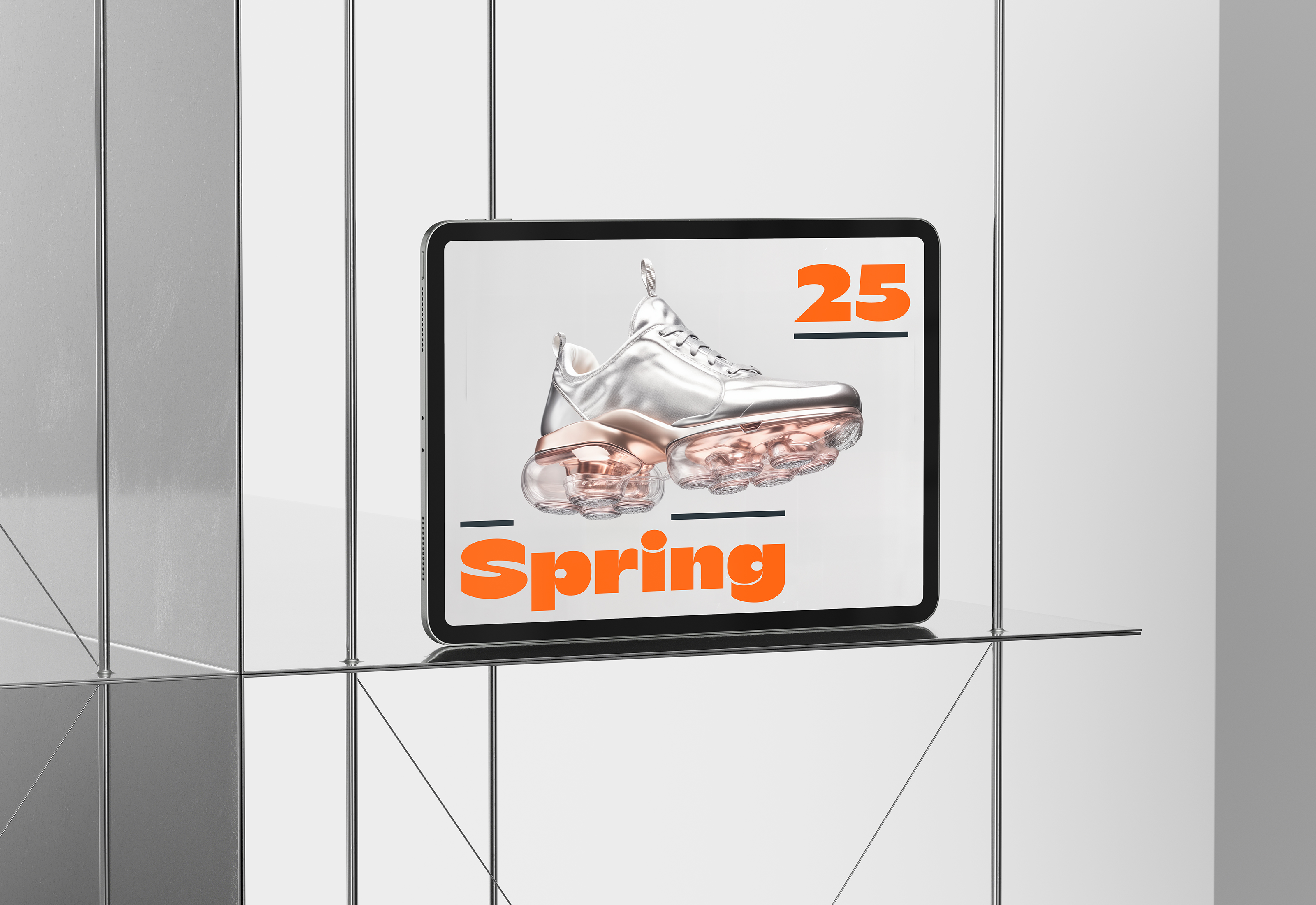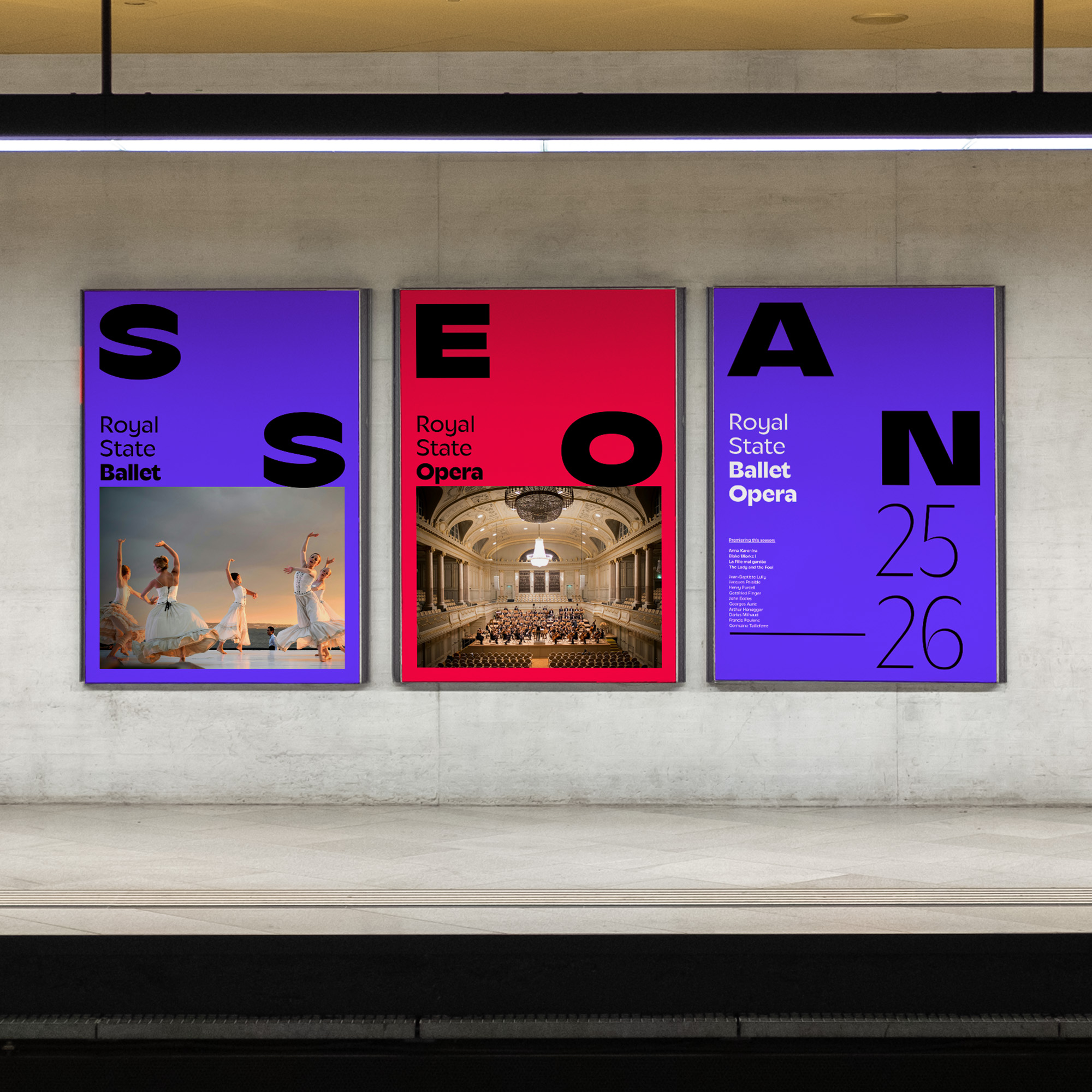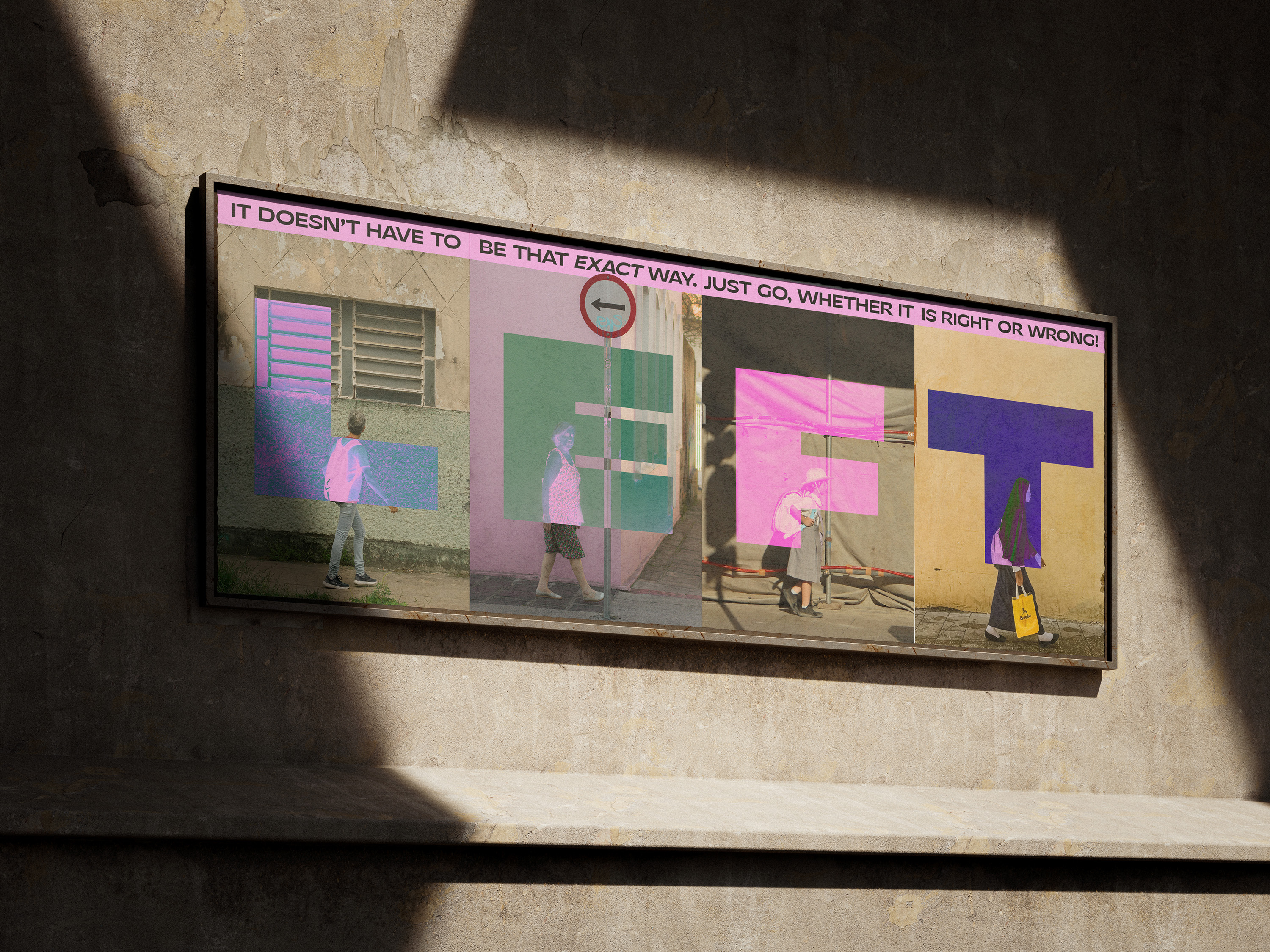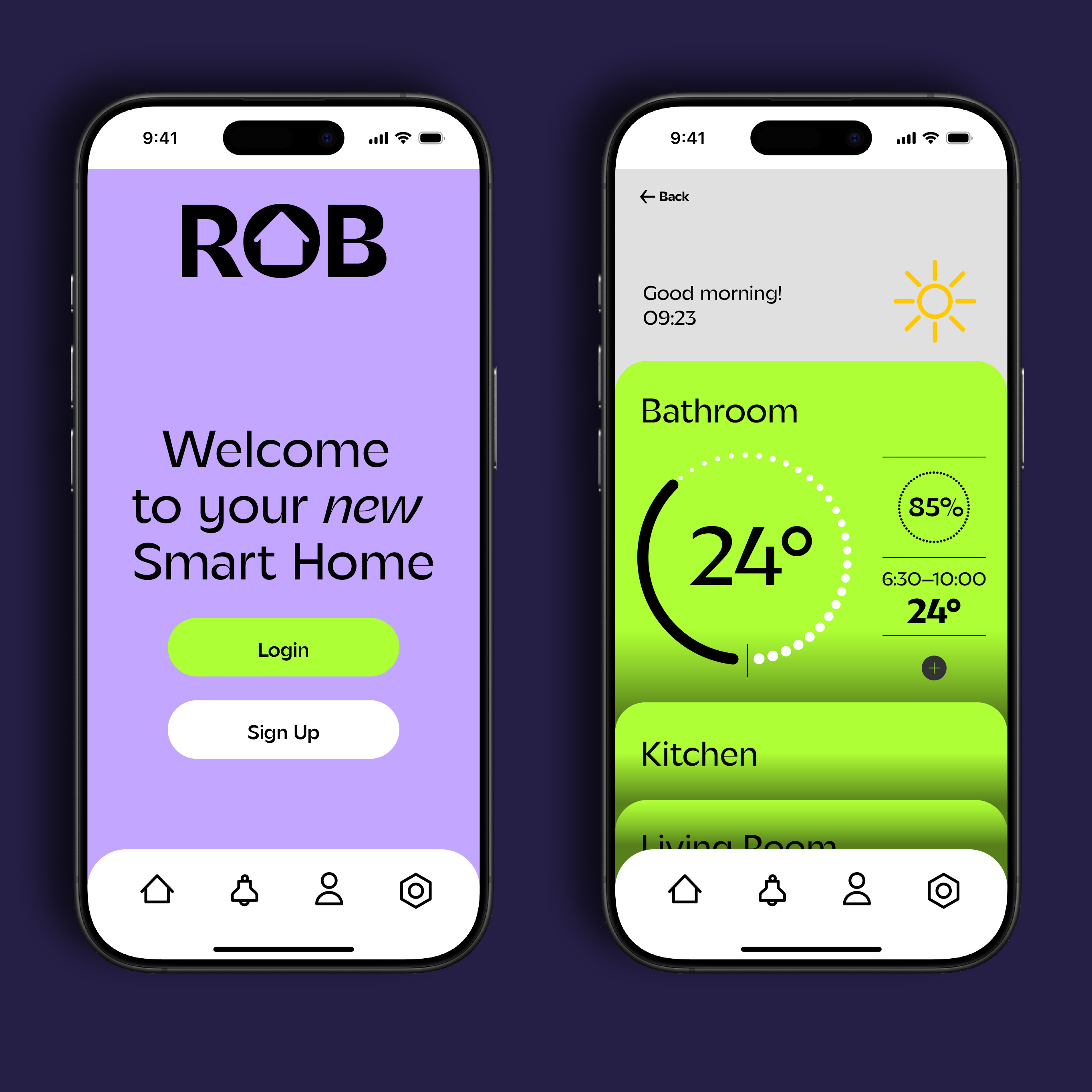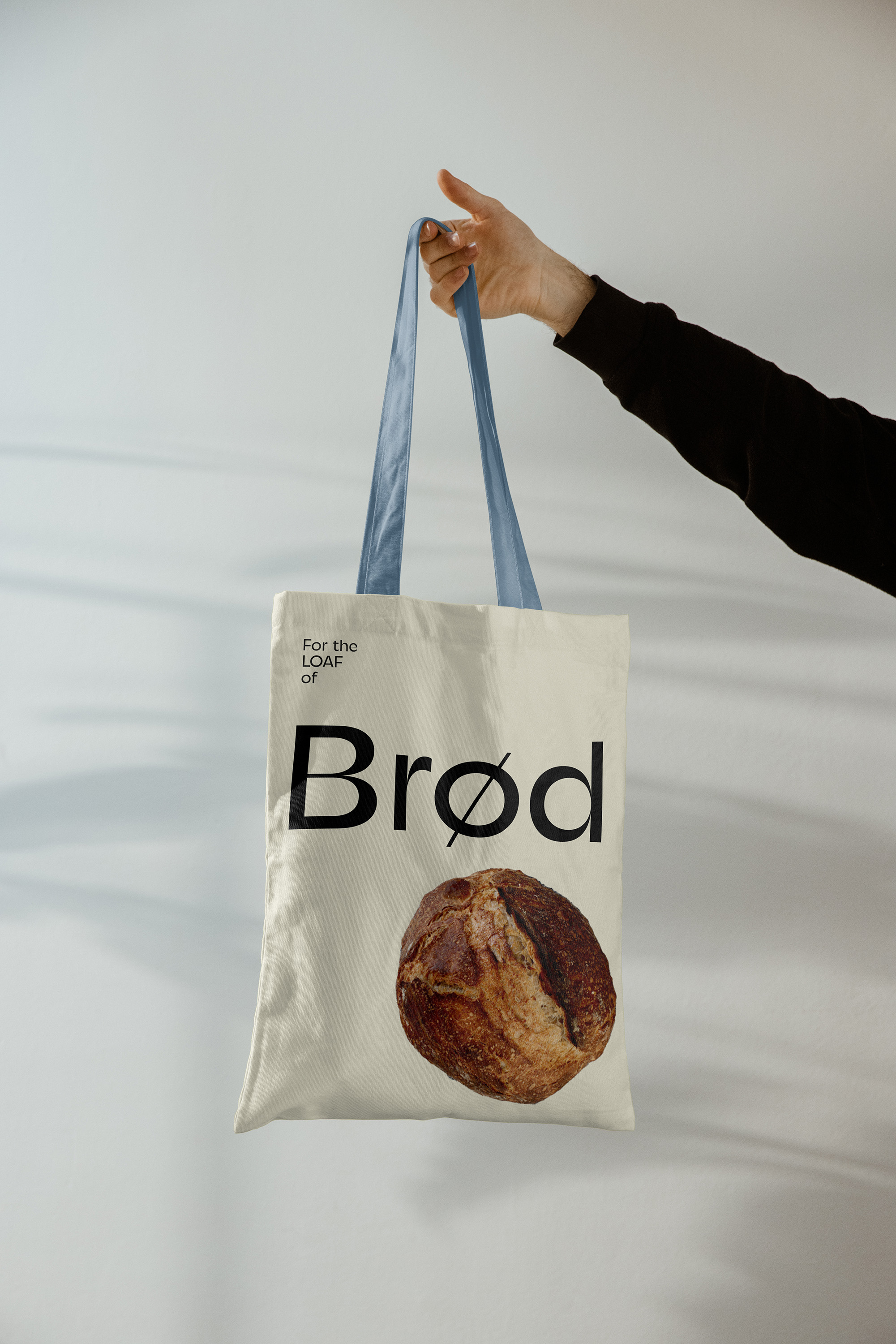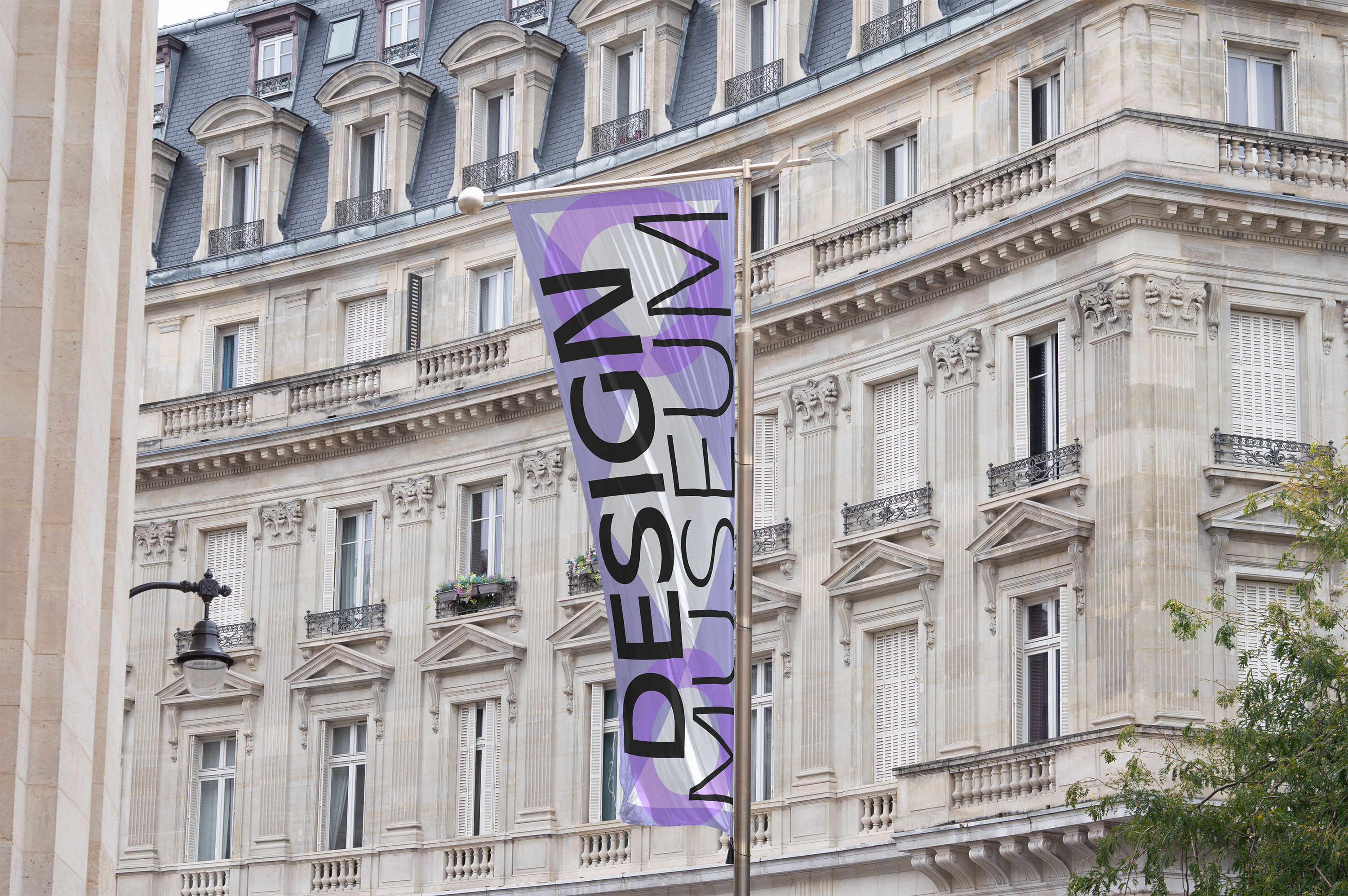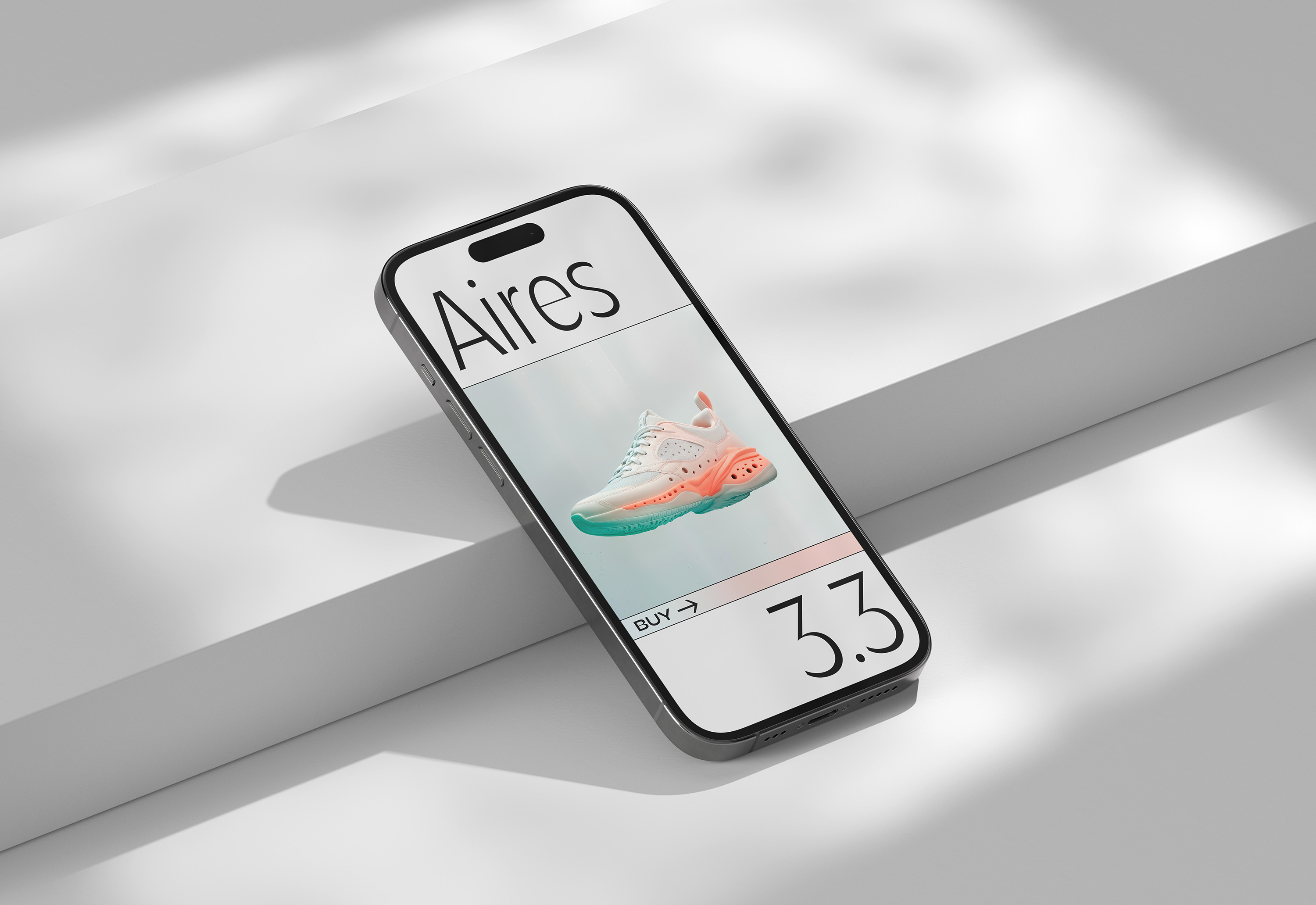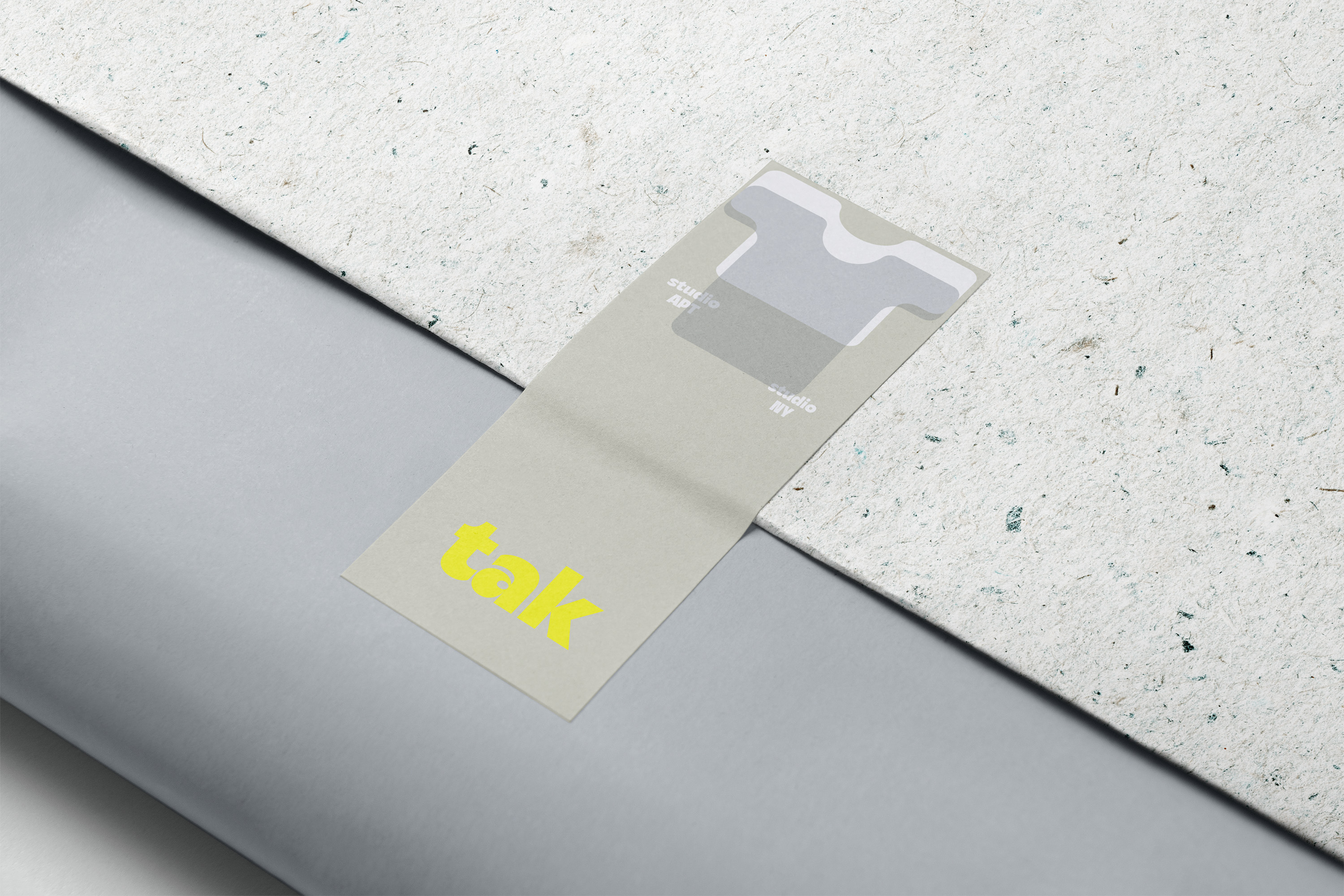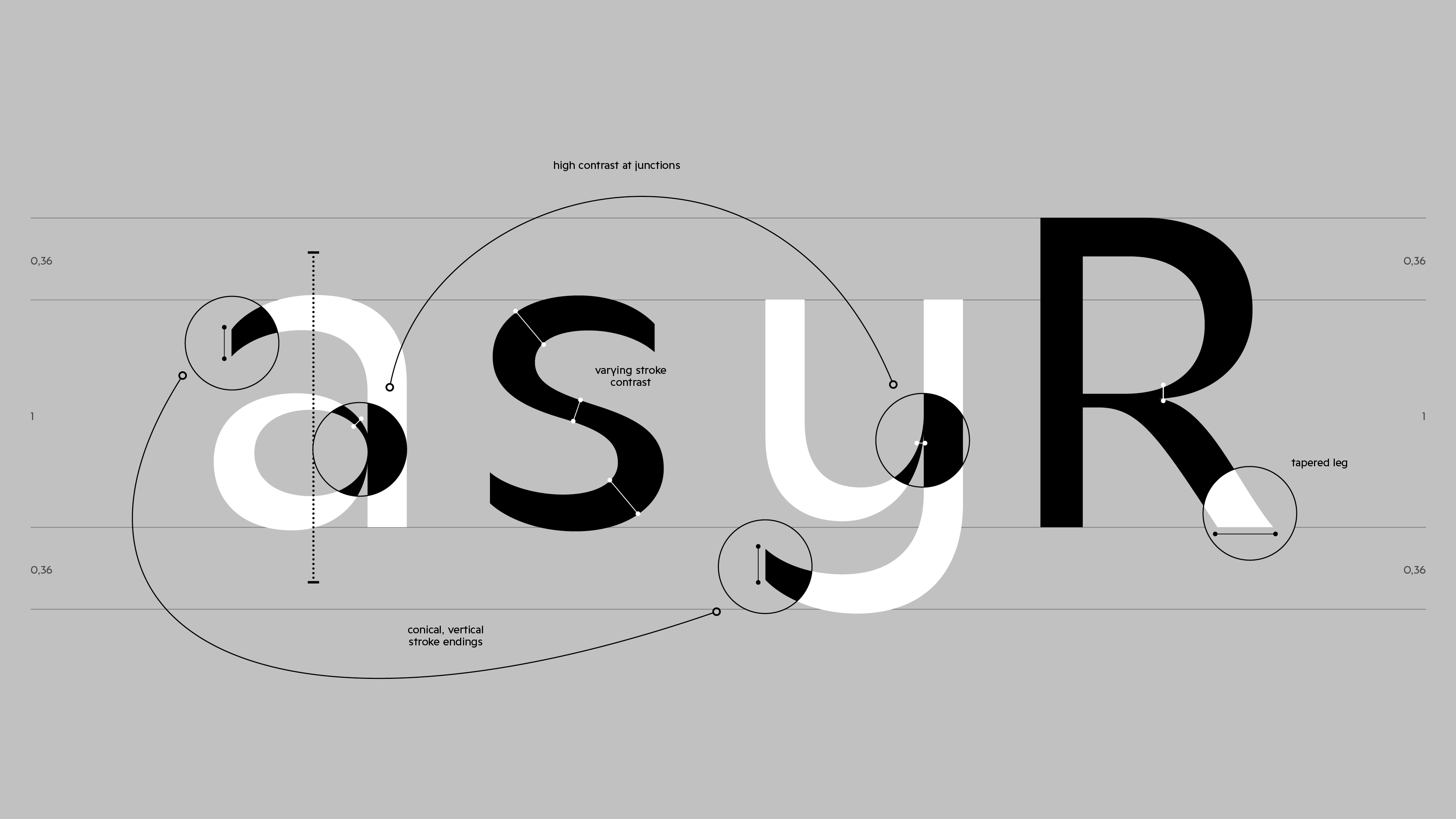
Se Macro
Se Macro is not just another sans—it’s a blend of functional versatility for global use and subtle French elegance. Se Macro delivers architectural clarity with expressive warmth, spanning 10 weights and 3 widths, ranging from a feather-light Hairline to a bold and powerful Ultra.
Se Macro balances clarity and elegance while capturing the spirit of minimalist design between modernism and postmodernism. It combines a monolinear structure with a high-contrast model, visible in the junctions where straight and round shapes meet. The dynamic distribution of contrast in letters like “s,” along with the gracefully sculpted Italics, adds further distinction to its voice.
Designed for the visual language of contemporary brands, fashion labels, cultural platforms, and design-driven products, Se Macro offers more than function—it offers identity. It’s a tool for designers who demand both structural integrity and stylistic impact. Se Macro is part of Se Collection, and will be accompanied by Se Micro, Se Mono, Se Soft, and Se Rounded, all of which are set to be released 2026—2027.
Daniel Perraudin
Noe Blanco
Vincent Schwenk